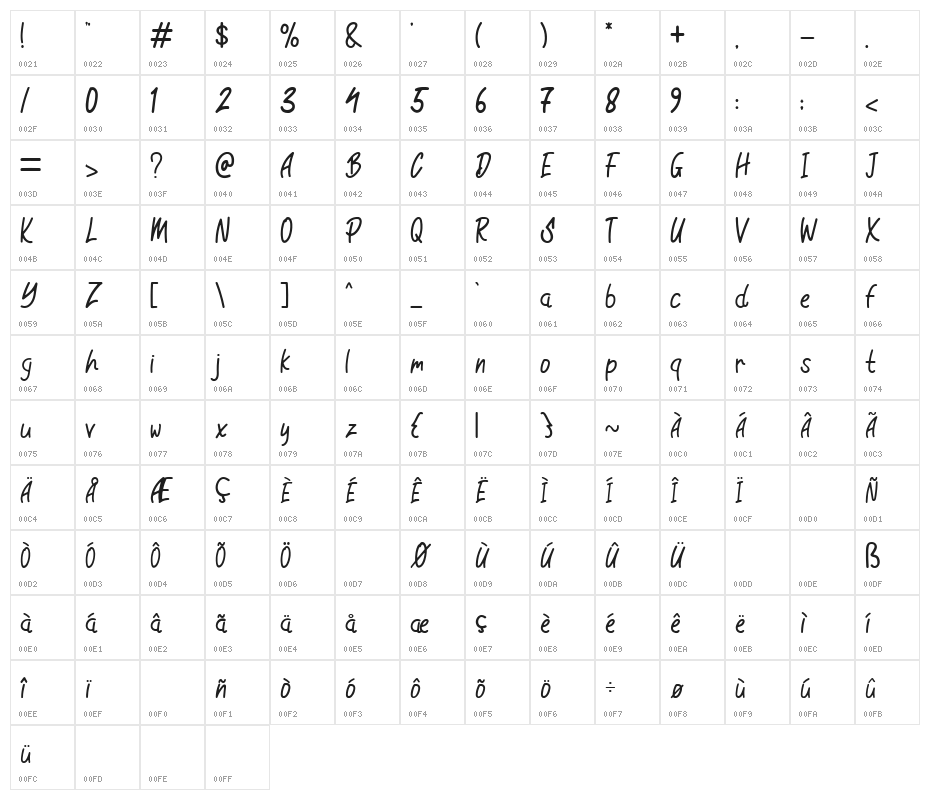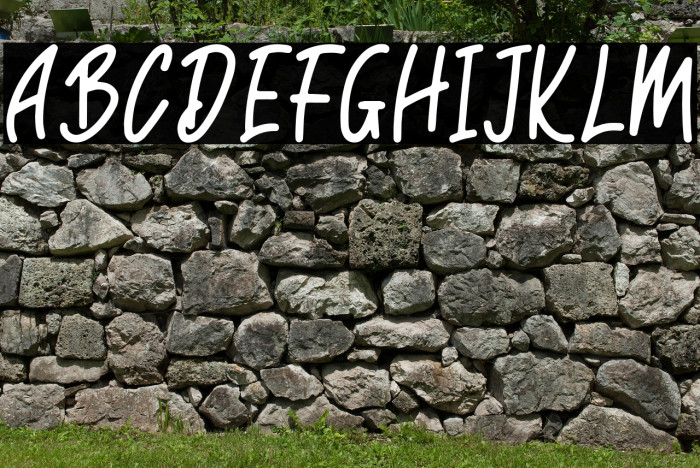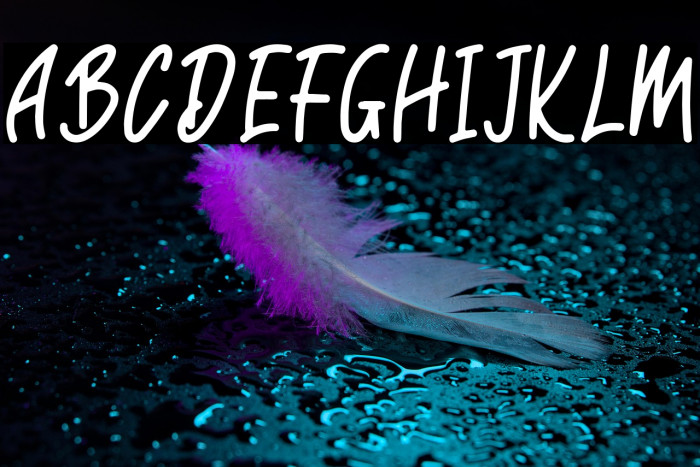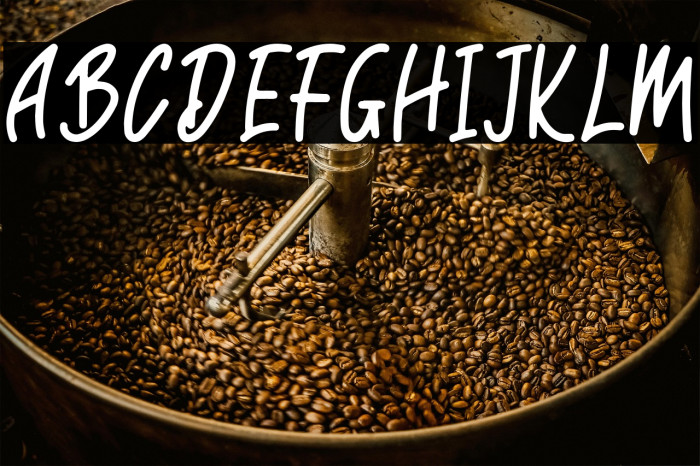
Water Seven Font
Water Seven Description
This font features a playful and casual handwritten style, characterized by its fluid and slightly slanted letterforms. The uppercase letters are bold and dynamic, while the lowercase letters maintain a consistent flow, enhancing readability. The numerals are distinct and well-proportioned, complementing the overall aesthetic. Special characters are creatively integrated, adding a touch of whimsy. The strokes are moderately thick, providing a balanced contrast that ensures clarity without sacrificing the font's informal charm.
| Proposed Projects | Ideal for greeting cards, children's books, casual branding, and social media graphics. |